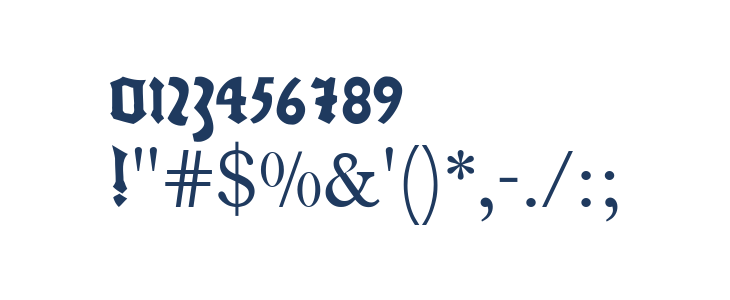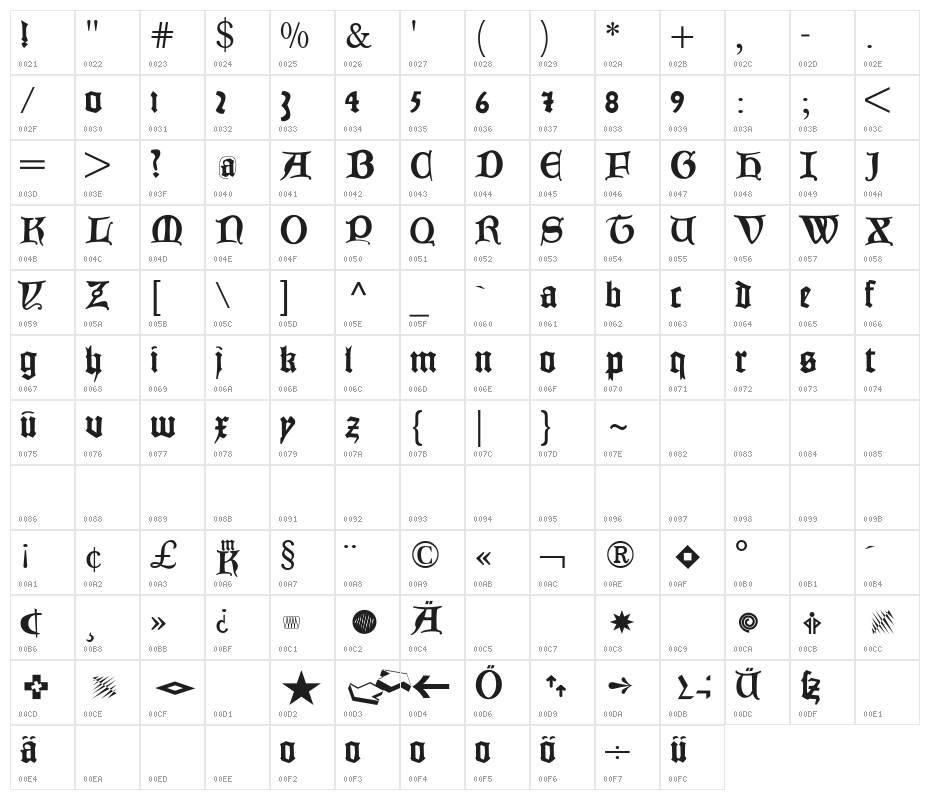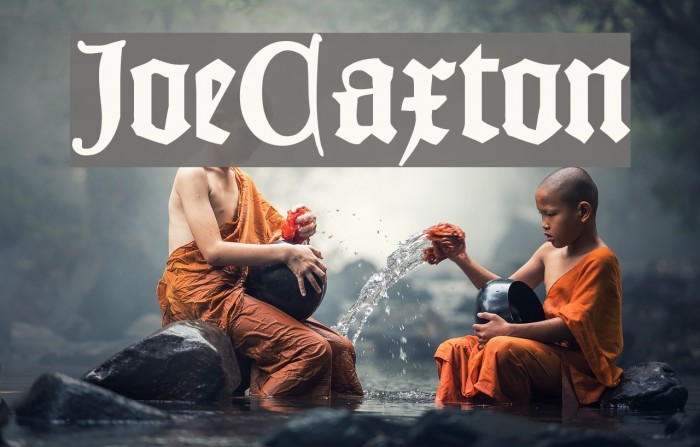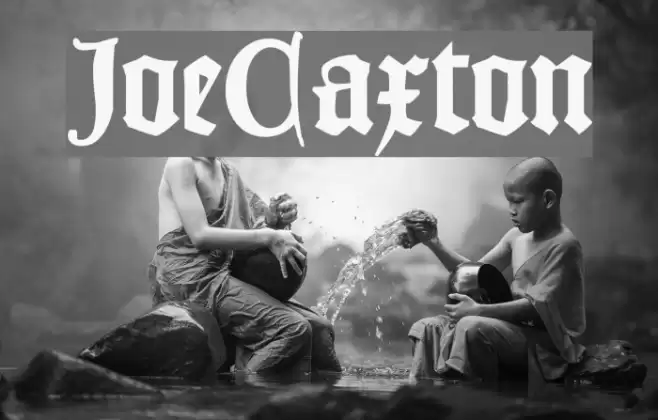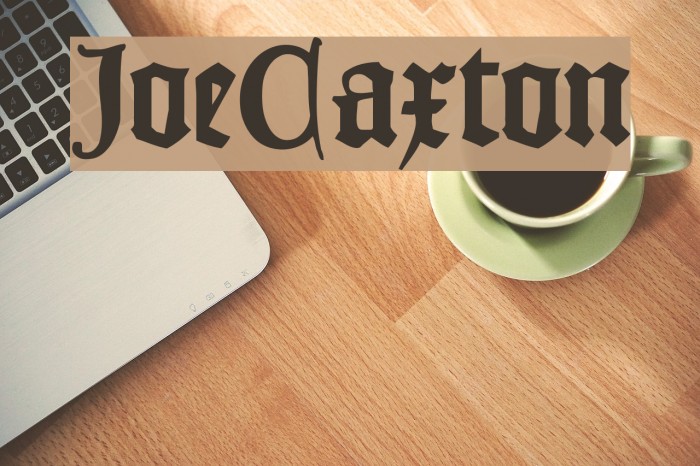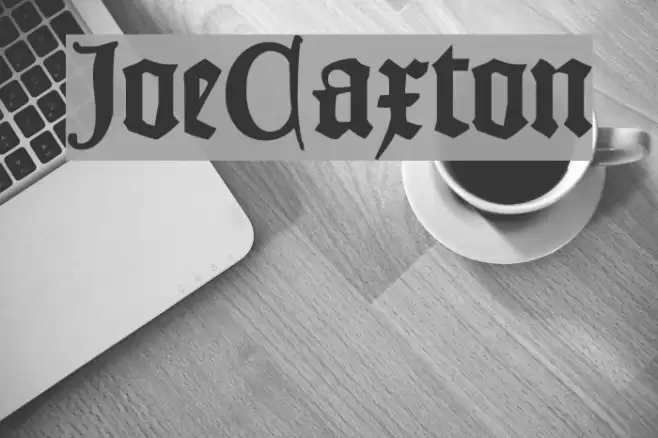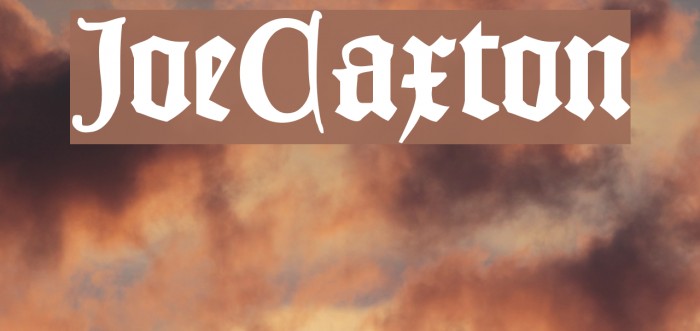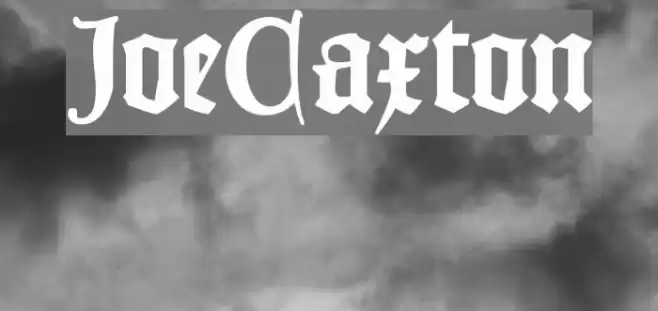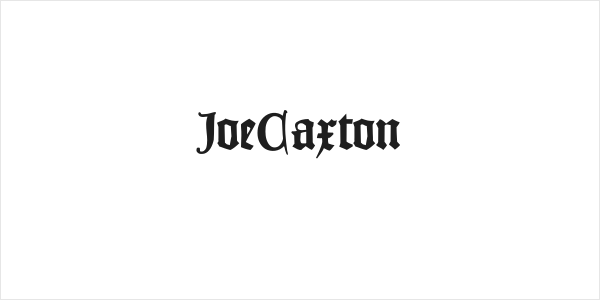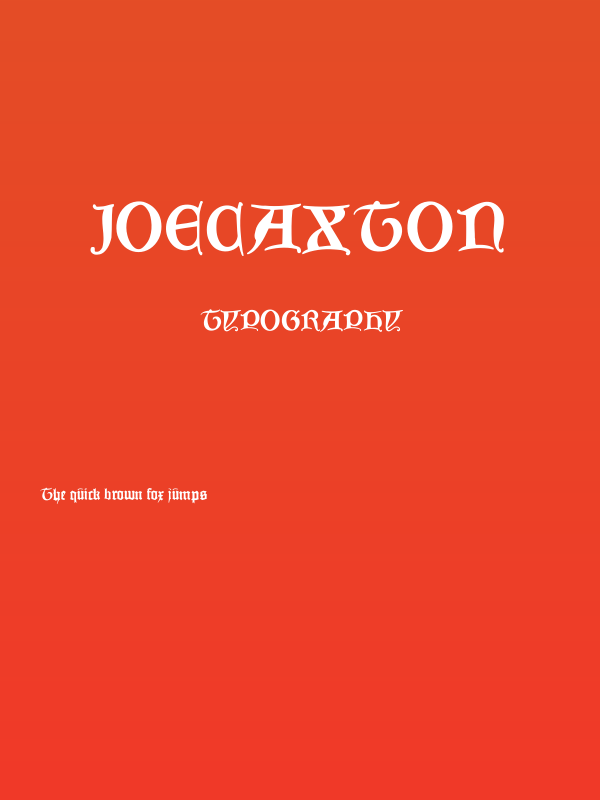
JoeCaxton Font
JoeCaxton Description
This font exhibits a classic blackletter style, characterized by its ornate and intricate letterforms. The uppercase letters feature sharp, angular lines with decorative serifs, while the lowercase letters maintain a bold and robust appearance. The numerals are consistent with the overall style, showcasing a medieval aesthetic. Special characters are designed with the same attention to detail, enhancing the font's cohesive look. The font's dramatic and historical feel makes it suitable for projects that require a touch of elegance and tradition.
| Proposed Projects | Ideal for historical documents, certificates, wedding invitations, and branding that requires a traditional or medieval touch. |